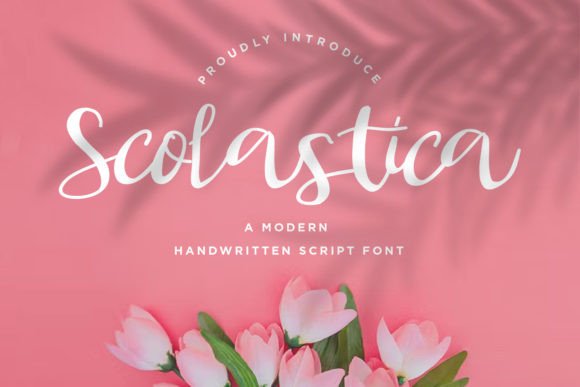
Introducing Scolastica Font, the perfect choice for anyone seeking a touch of elegance and sophistication in their designs. This romantic and stylish script font, created by the talented Naharstdio, is guaranteed to captivate your audience and elevate your projects to new heights.
With its flowing lines and delicate loops, Scolastica Font is a true work of art. Every letter has been meticulously crafted to exude charm and grace, making it the ideal choice for stunning wedding invitations that will leave a lasting impression. Imagine your guests being enchanted by the beautiful calligraphy and feeling the love and romance in the air.
But Scolastica Font doesn't stop there. Its versatility makes it a great addition to any branding project. Whether you're creating a logo for a beauty salon, fashion brand, or any other business that values elegance and class, this font will help you stand out from the crowd. Your brand will radiate sophistication and instantly grab the attention of potential customers.
One of the standout features of Scolastica Font is its PUA encoding. This means that accessing all the stylish glyphs and swashes is effortless, allowing you to easily customize your designs and add that extra touch of uniqueness. Let your creativity flow and watch as your projects come to life with the incredible variety of options at your fingertips.
When you download Scolastica Font, you're not just getting a font – you're unlocking a world of possibilities. Whether you're a professional designer or someone looking to add a touch of beauty to their personal projects, this font is the perfect companion. Its timeless elegance will never go out of style, ensuring that your creations continue to impress for years to come.